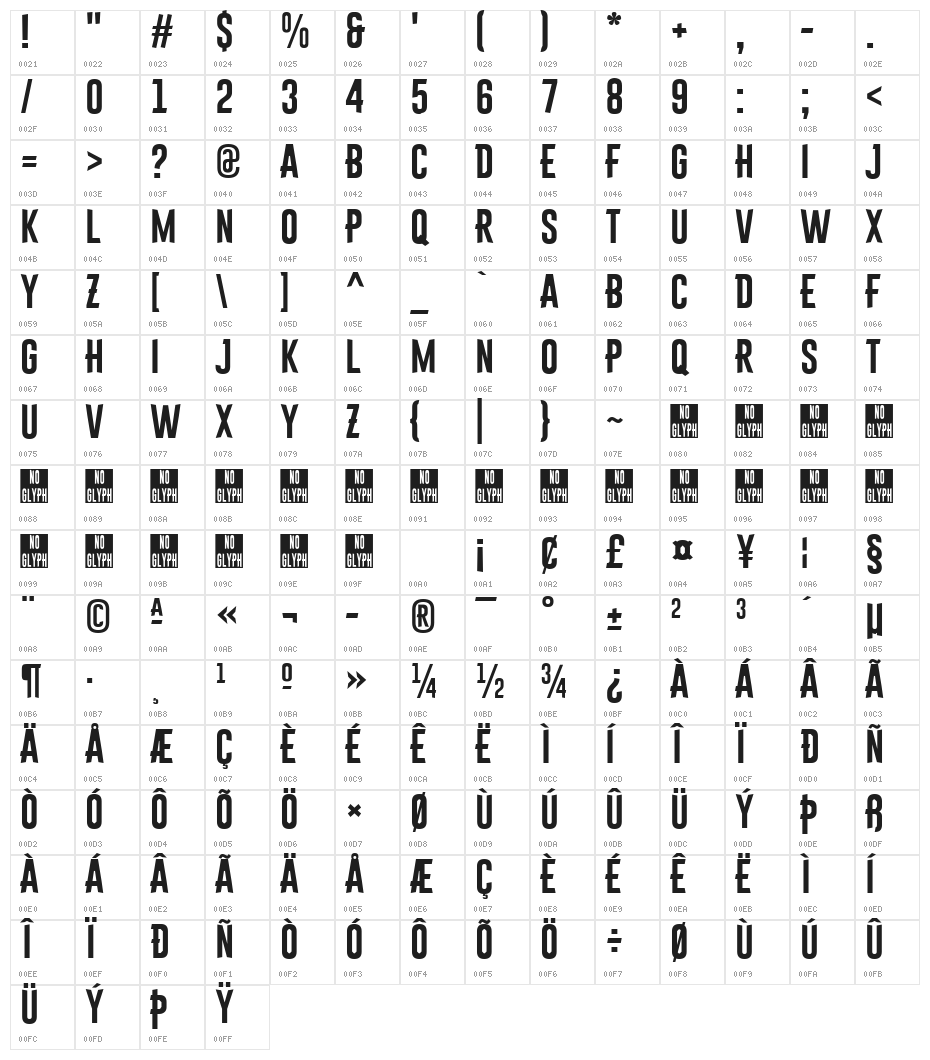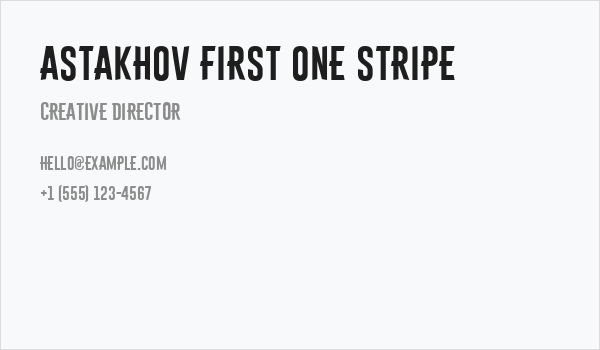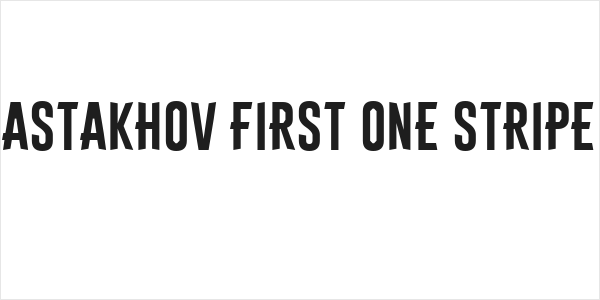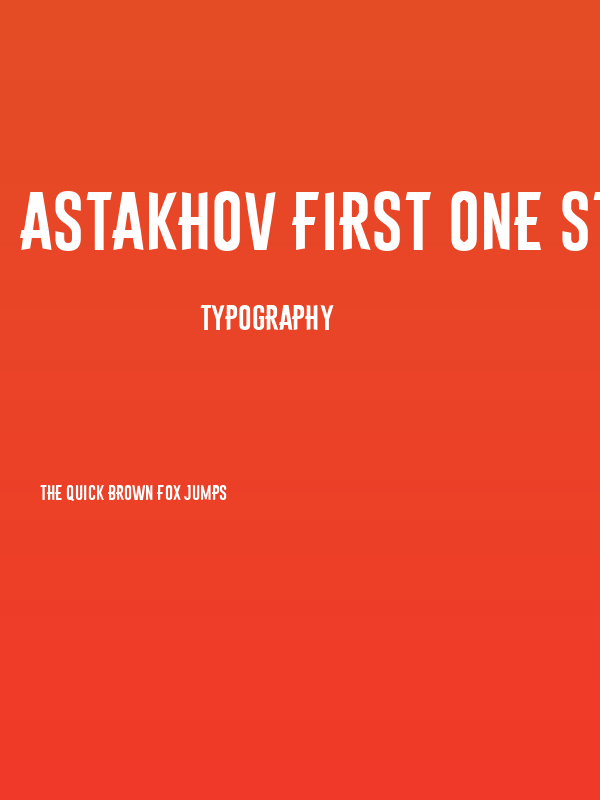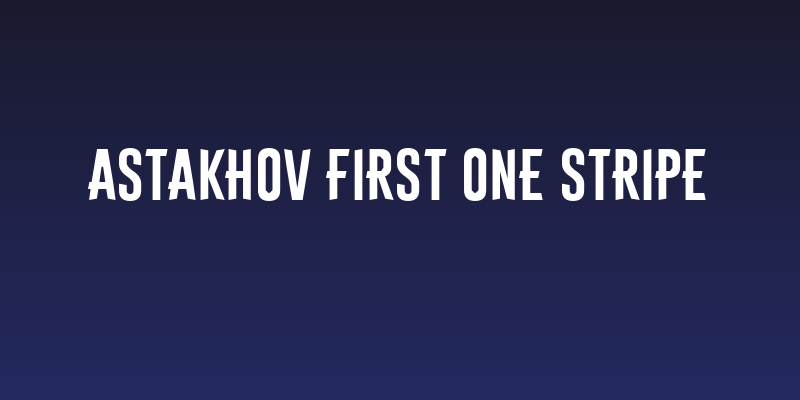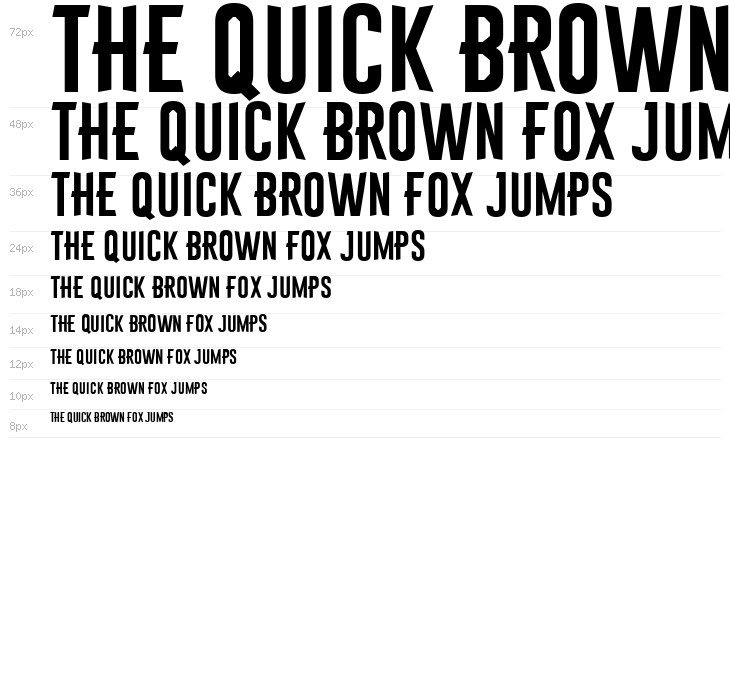
Astakhov First One Stripe Font
Astakhov First One Stripe Description
This font features a bold and striking design, characterized by its thick, uniform strokes and slightly condensed letterforms. The uppercase letters are prominent and commanding, making them ideal for attention-grabbing headlines. The numerals and special characters maintain the same boldness, ensuring consistency across all text elements. The font's clean lines and lack of serifs give it a modern and sleek appearance, suitable for contemporary design projects. Its high contrast between the thick strokes and the negative space enhances readability, even at smaller sizes.
| Proposed Projects | Ideal for branding, advertising, poster design, and any project requiring strong, impactful typography. |